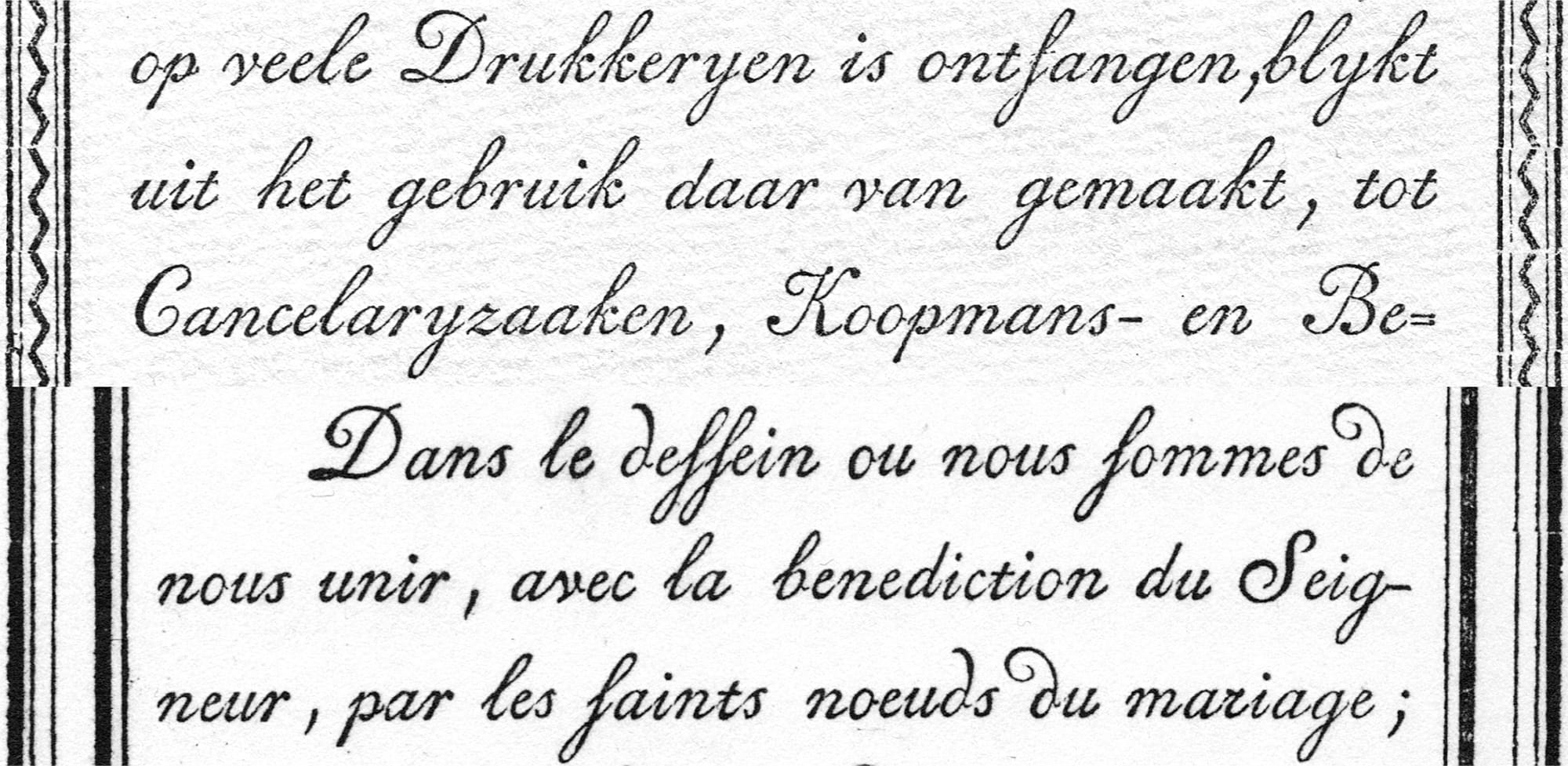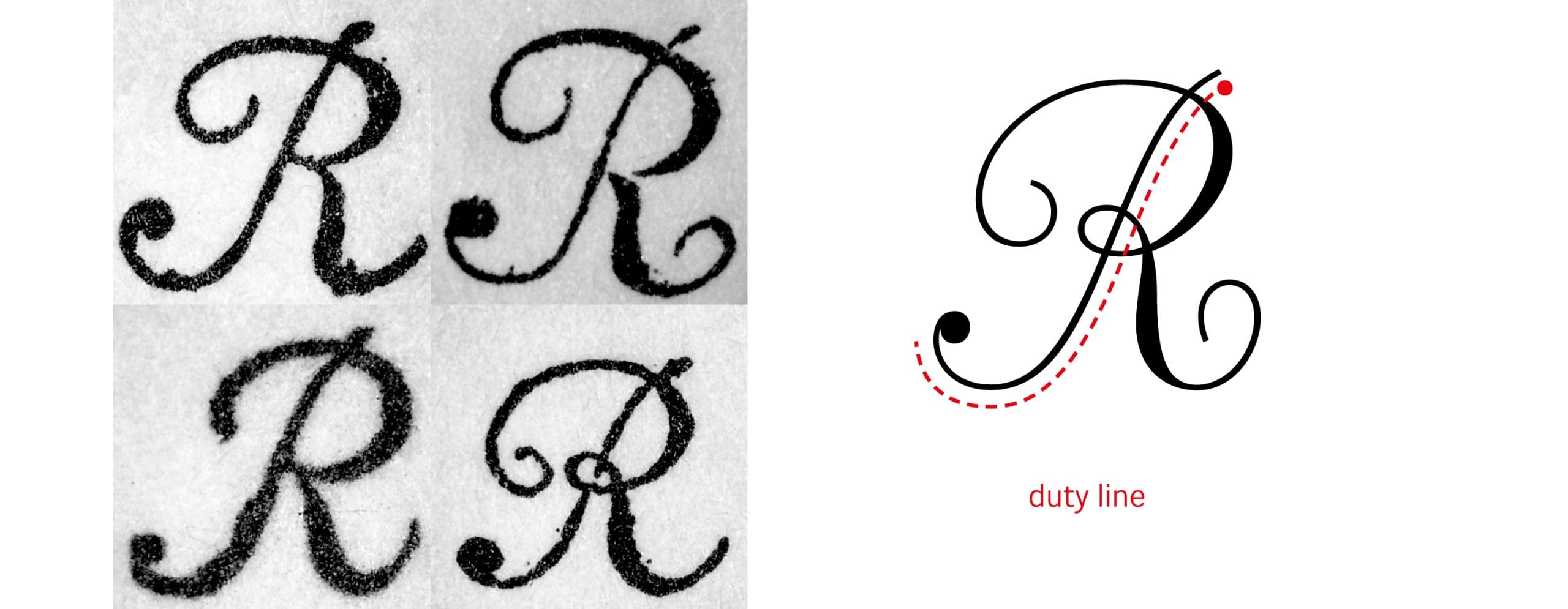
Pritzious
Pritzious is a flamboyant script typeface for branding and display purposes. It is based on Rosart’s and Fleischman’s ‘Financière’ style of script types. With its cultured shapes, its European roots and its contemporary demeanour, Pritzious stands out among all the scripts of its kind.
Pritzious, the tasty and charming unjoined script
Pritzious is a script typeface by the Italian letterer and designer Valentina Casali. Suitable for branding, publishing and packaging, it might also be a fine choice for titles and headings etc. and for setting certain historical texts.
Inspiration for this unusual face came to Casali from the 18th-century ‘Caractère de Finance’, a style of type following the ‘Financière’ handwriting style introduced by some 17th-century calligraphers and engravers, and above all the French ‘maître écrivain’ Louis Barbedor (1589–1670). Over a span of twenty years (1750s–1770s) the Caractère de Finance was cut several times by different punchcutters, such as Jacques-François Rosart (1714–1777), Joan Michaël Fleischman (1707–1768), and others including Rosart’s son Mathias (1743‒1815). Most of those types were cast and sold by the famous Dutch printer Johannes Enschedé (1708-1780).
The two main sources of Pritzious: the ‘Financière’ script types cut respectively by Fleischman in 1756 (above) and Rosart around 1760 (below).
Rosart’s and Fleischman’s sources taken into account by the designer display capitals that followed Barbedor’s large caps engraved on and printed from copper plates, while their lowercase letters continue the French bâtarde tradition. But due to technological limitations of the time the letters are not joined up. Indeed the earliest joined up script types with exit strokes meeting entry strokes such as those of calligraphic letters appeared in the early 19th century. The capitals must have been loved by Bodoni who in his compulsive production cut them in as many as 15 sizes. They are shown under the name of ‘Maiuscola Cancelleresca’ in his 1788 typographic manual Serie di maiuscole e caratteri cancellereschi and in all his following manuals.
A copper plate print from Louis Barbedor’s Les Escritures Financière et Italienne-Bastarde. Paris, 1647.
Let’s talk with Valentina Casali and find out more about her Pritzious – the first script typeface released by CAST foundry.
How did you approach this project?
My goal was to design an ‘outsider’ historical script suitable for branding and display purposes. After scouting around, I focused mainly on two historical types: the Dubbelde Descendiaan Geschreven Schrift, whose punches were cut by J. M. Fleischman, 1756; and the Double Descendiaan cut by J-F. Rosart, around 1760. They look very similar (both measuring approximately 24 points), but differ in the slant angle (30° and 25°) and in the contrast distribution of some letters.
Close up of Fleischman’s (left) and Rosart’s types (right).
It was not my intention to achieve the revival of a single script typeface, I aimed to find a synthesis of a style of type, the Caractère de Finance, working on more than one model. I started my design process by looking at different printed instances of letter n; though having a different italic angle, they show a very similar structure, or ductus, if we want to use a calligraphic term. I started experimenting with contrast; first, I investigated the contrast distribution by modulating the ink distribution, then I played with the amount of contrast by amplifying the difference between thin and thick strokes, and also narrowing the width of the letters along the process.
Theoretical model of the design space, with four axes.
What are the main features of Pritzious?
Lowercase letters are not connected. This feature repeats what we find in Rosart’s and Fleischman’s types, where there are inconsistencies with the joining of letters due to technological limitations. I decided to transform these constraints into a design feature to maintain a strong connection with the sources. These inconsistencies show the technical limitations of 18th-century metal type and give the opportunity today for some fun and unexpected behaviour for a script typeface. Some of the connections were intentionally let looser to avoid stiffness as can be noticed in letters such as i, p, t and u.
Samples of loose connections between entry and exit strokes.
The uppercase letters B, F, P, R and T feature a hallmark of Barbedor’s hand: the thin vertical stem with no contrast, also known as ‘duty line’, a design detail also seen in Rosart’s and Fleischman’s types, and much appreciated by Bodoni who repeated it.